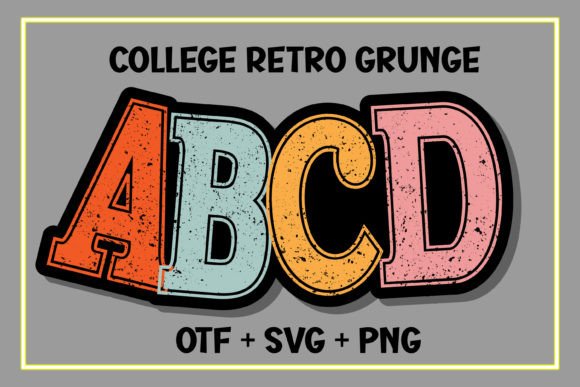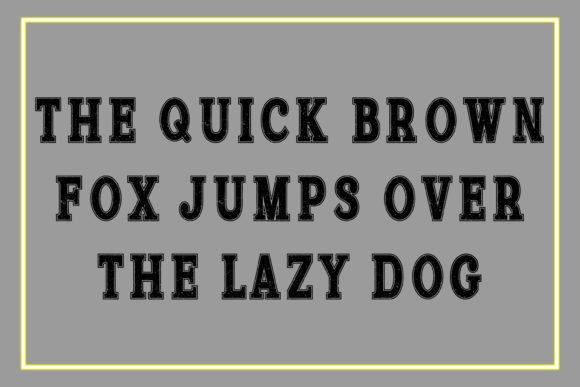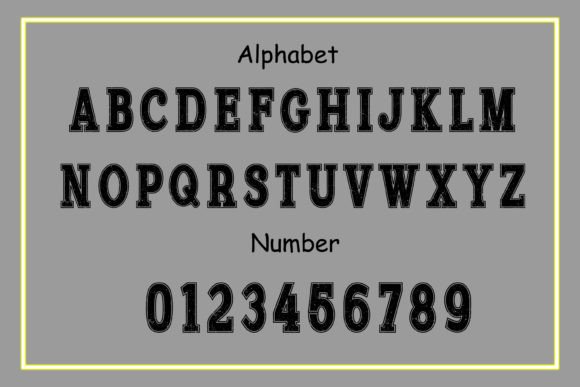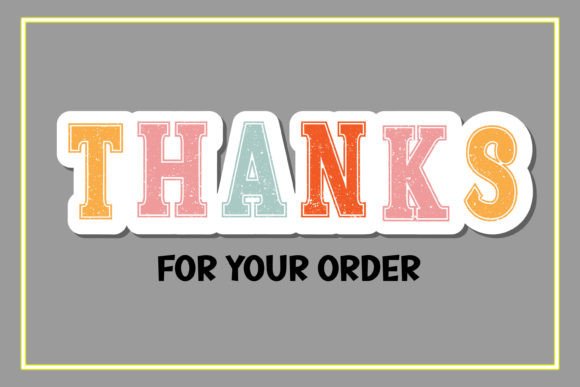
College Retro Grunge Font
About the College Retro Grunge Font
Make a bold statement with College Retro Grunge Font, a powerful and memorable font. Introducing a vibrant splash to your creative projects, our color font embodies joy and whimsy that is bound to elevate your design endeavors. An absolute fit for branding initiatives, packaging designs, riveting logotypes, and gripping headlines, it also adds a sprinkle of charm to wedding invitations and similar creatives. Embrace and experience the transformative power of this uplifting font in your designs.
This font’s bold, playful personality makes it ideal for headlines, short text blocks, posters, and branding projects seeking a retro, slightly rebellious feel. It excels in conveying energy and a youthful spirit. However, its highly stylized nature makes it unsuitable for body text or UI elements requiring high readability. Long paragraphs set in this font would be difficult to read.
Consider pairing College Retro Grunge with a clean sans-serif like Montserrat for a balanced contrast, or a more refined serif like Garamond for a touch of classic elegance. For a more playful approach, a handwritten script font could also complement its energetic character.
The overall aesthetic works best for brands targeting younger demographics, products emphasizing fun and creativity (e.g., clothing, music, entertainment), or projects requiring a vintage-inspired, slightly grungy look.
College Retro Grunge Font Usage Examples
College Retro Grunge Font Example